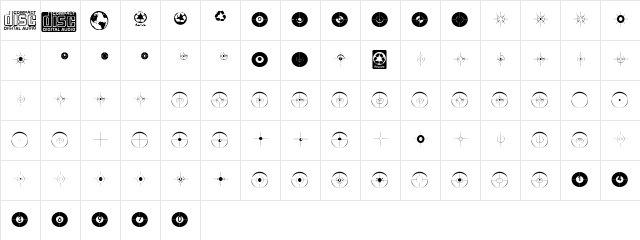
Registration Regular
Design Context for Registration Typeface
Registration is a composed and adaptable typeface that performs quietly and consistently across a wide range of design contexts.